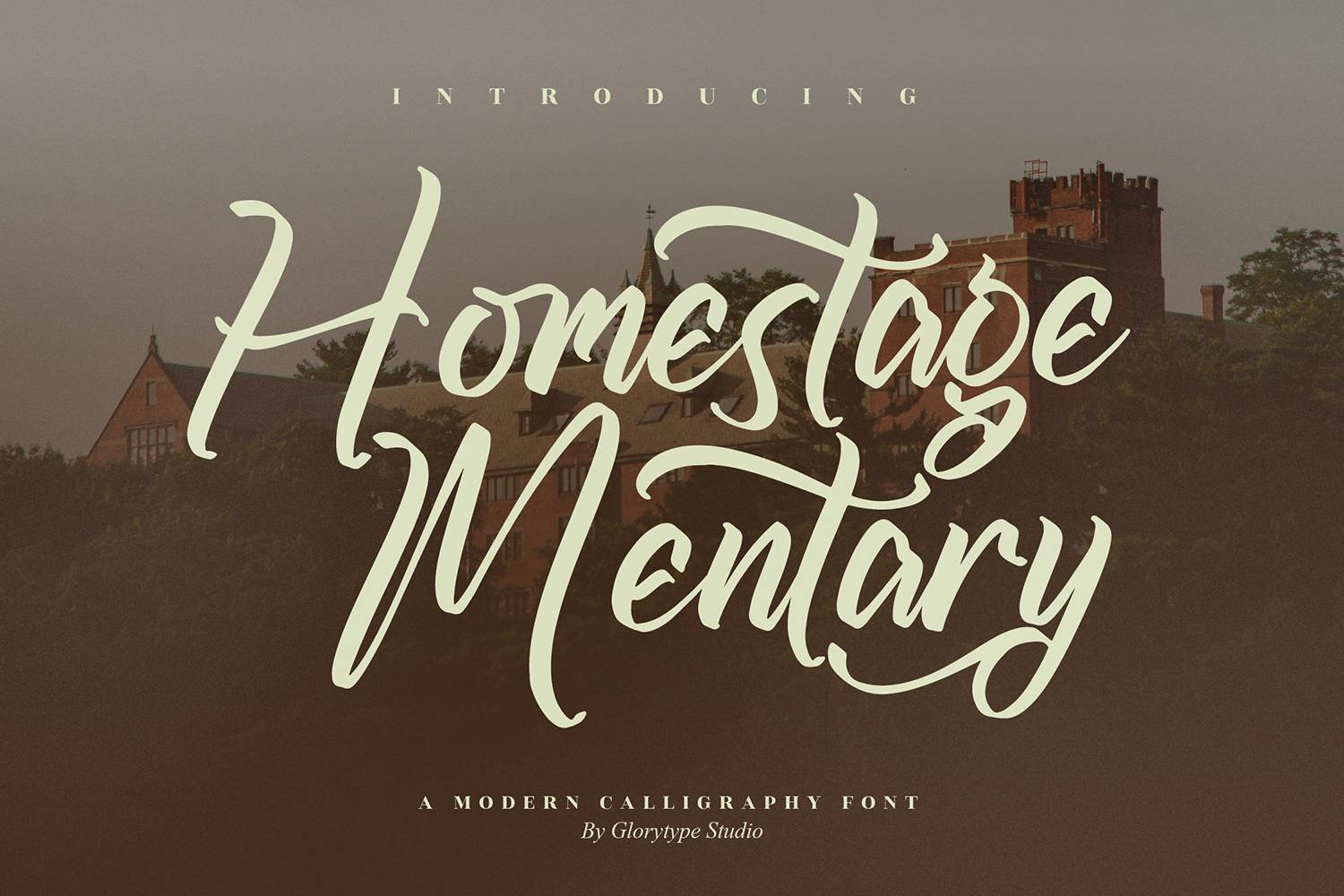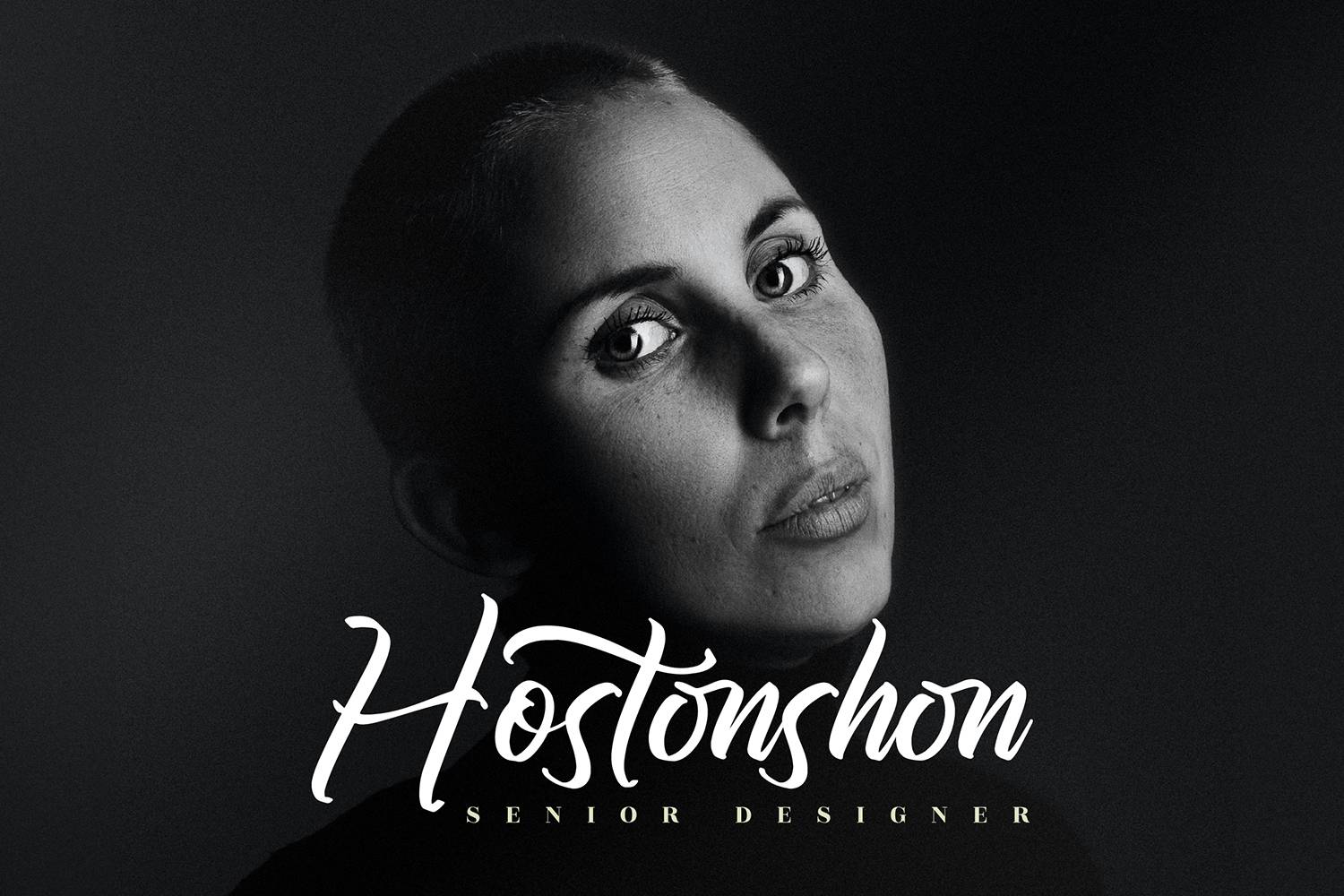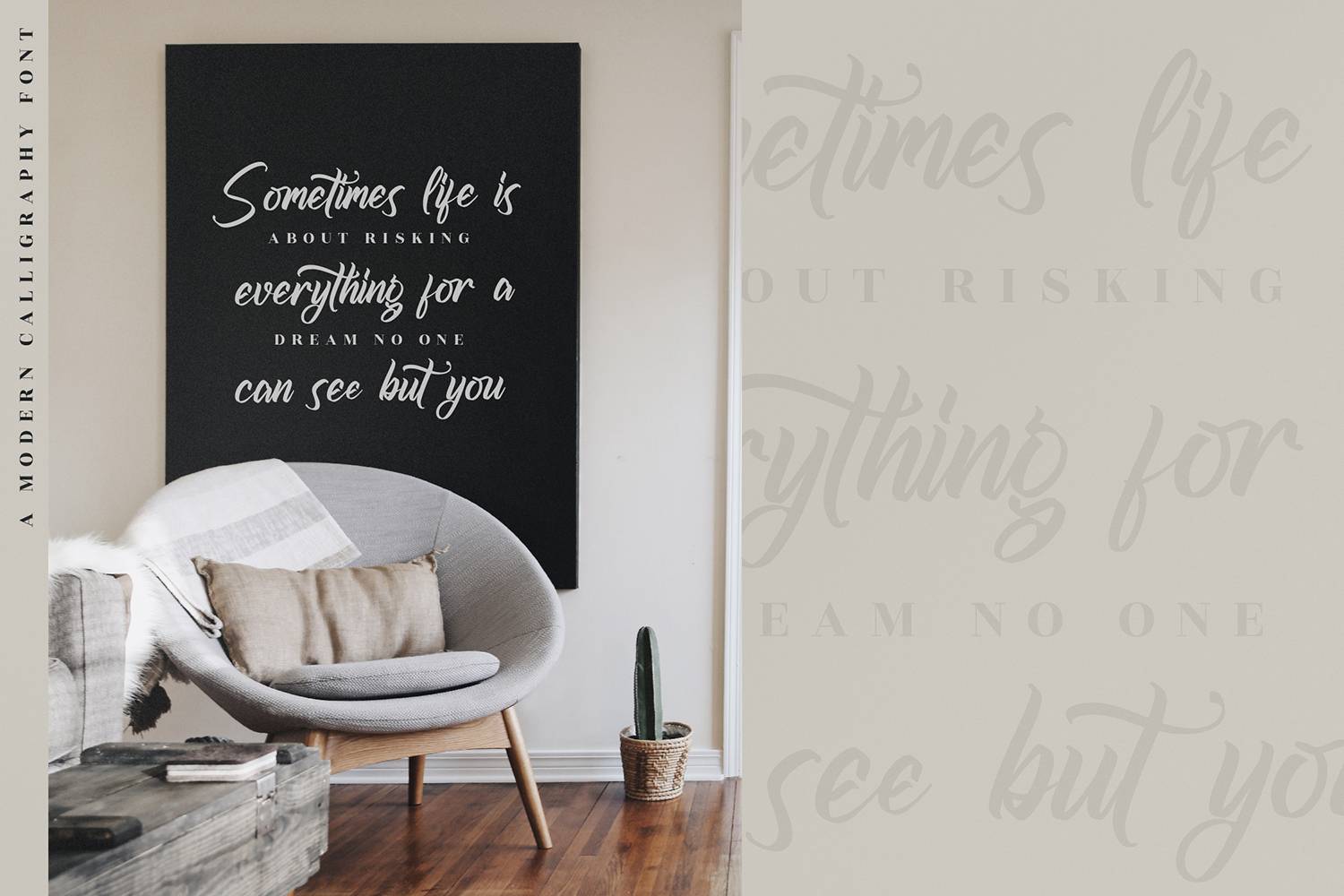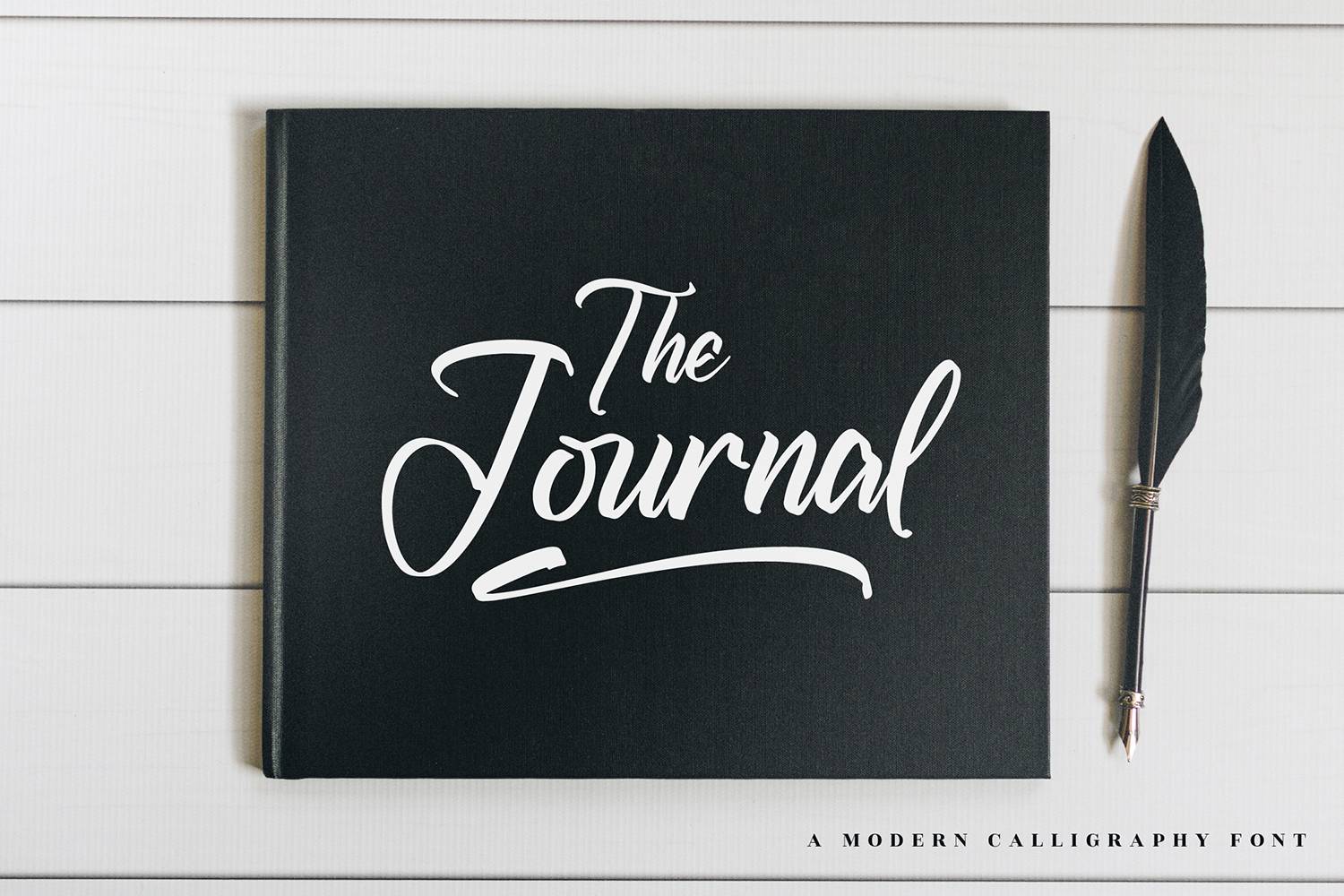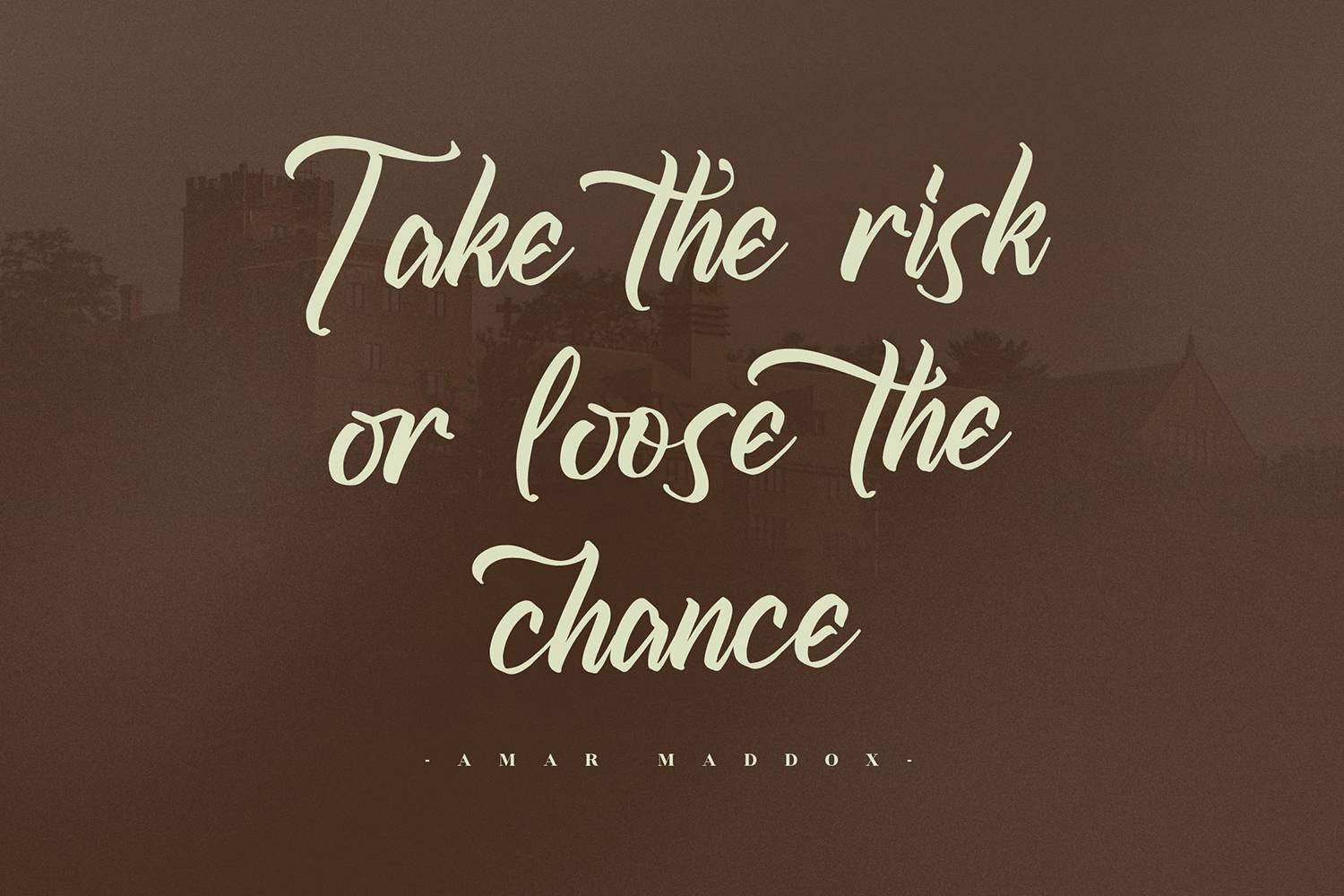
Homestage Mentary is a stylish script font with elegant, flowing strokes that mimic natural handwriting. Its moderate contrast and sharp, slightly exaggerated letterforms give it a refined yet approachable feel, making it ideal for branding, invitations, and social media designs that seek a personal and sophisticated touch. This font works beautifully for projects that want to convey creativity and charm with a hint of formal grace.
Homestage Mentary Font